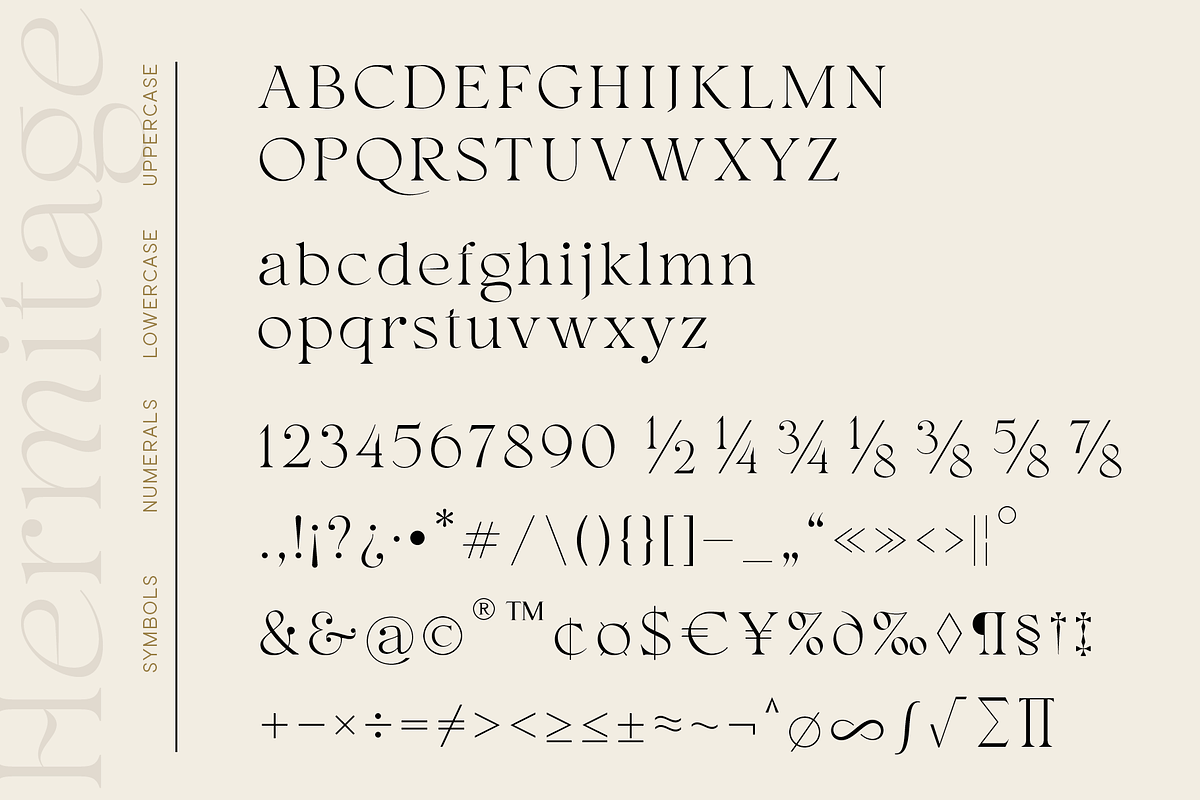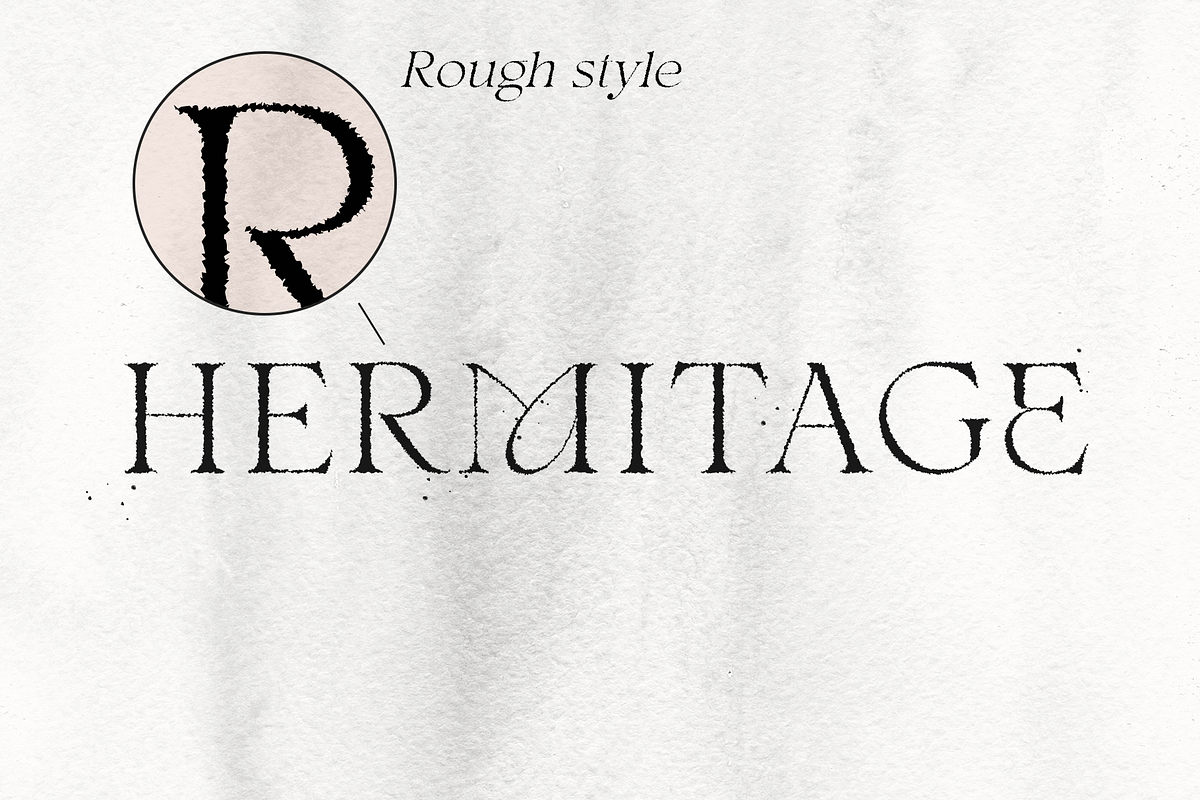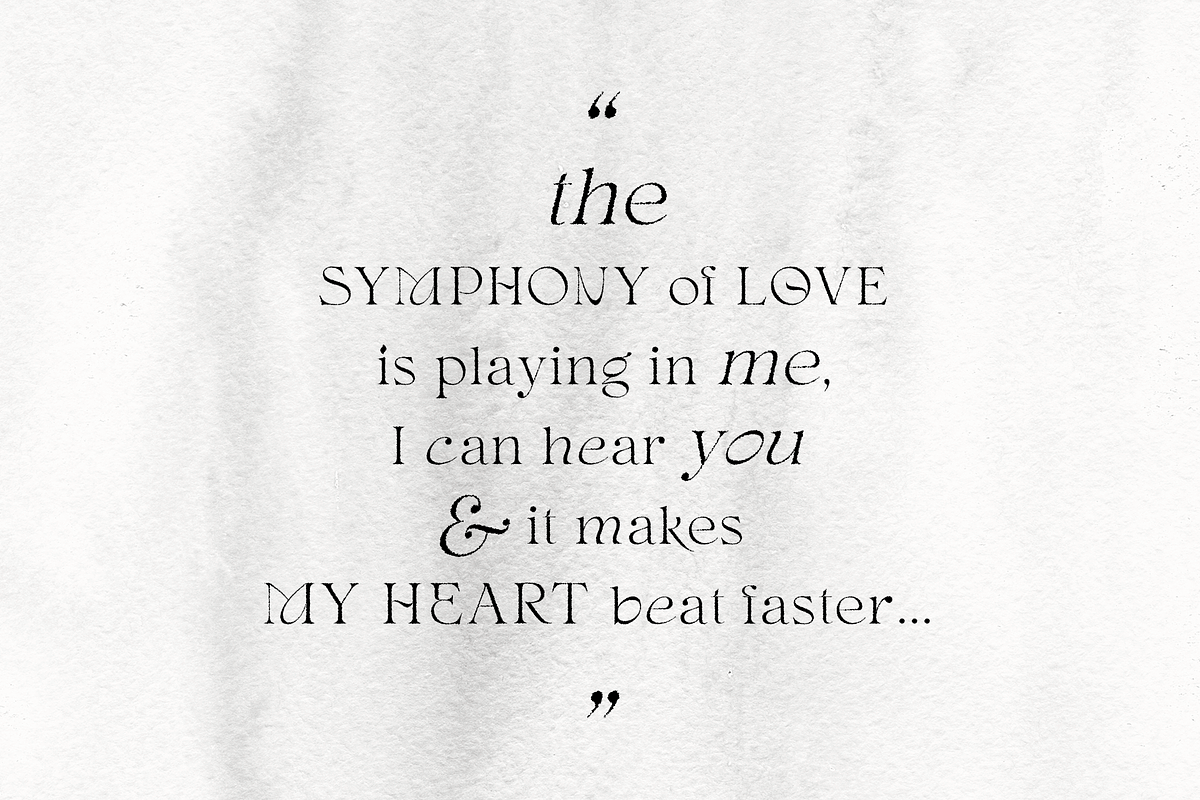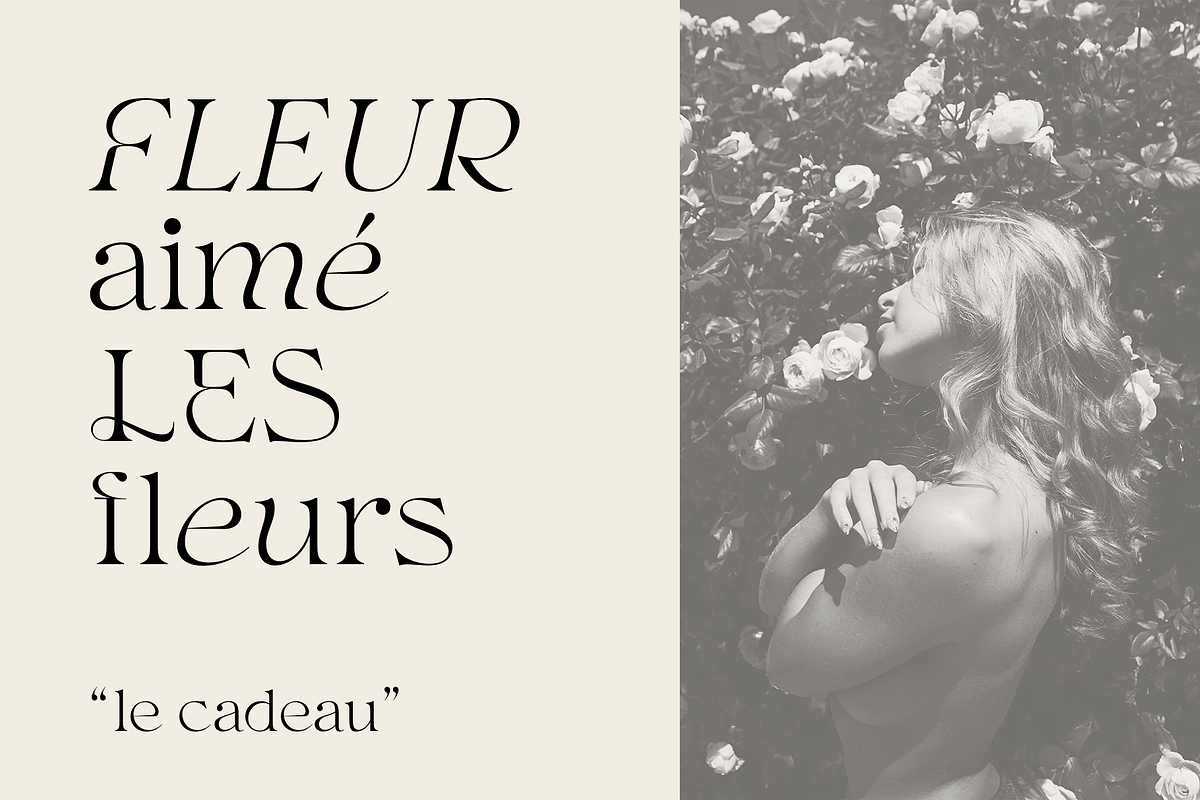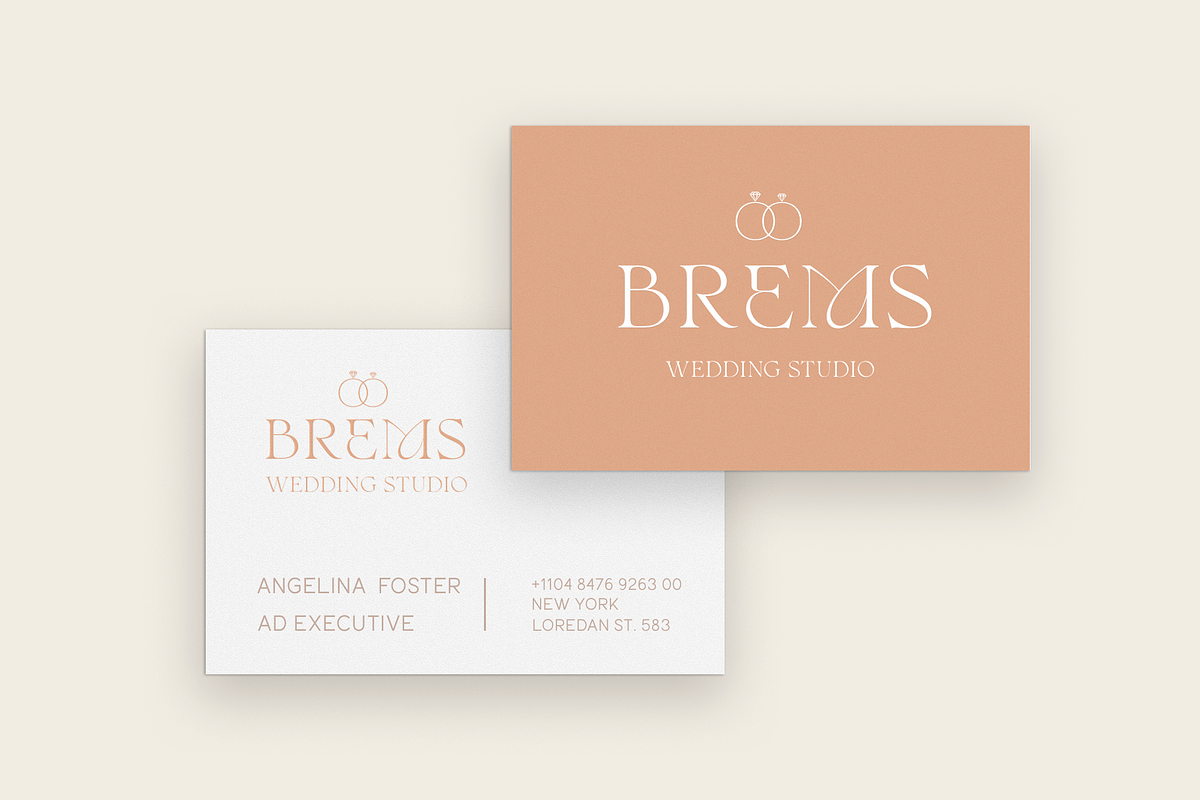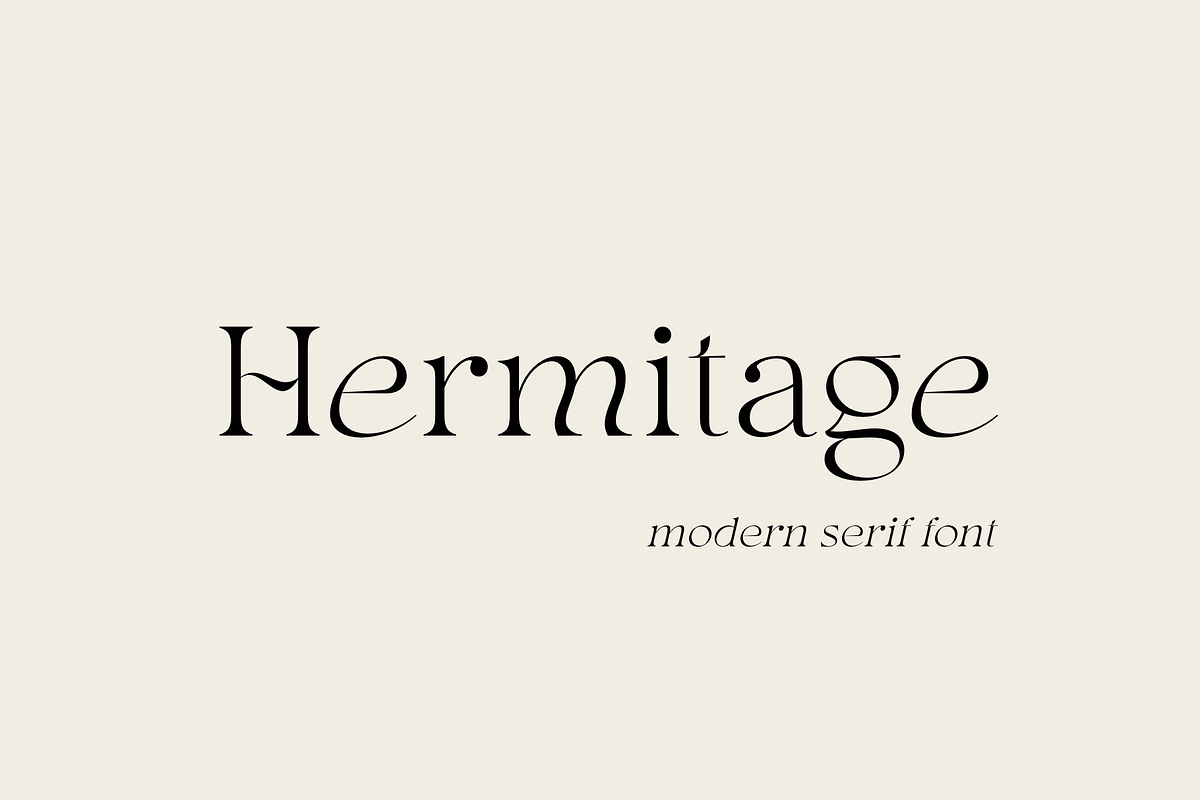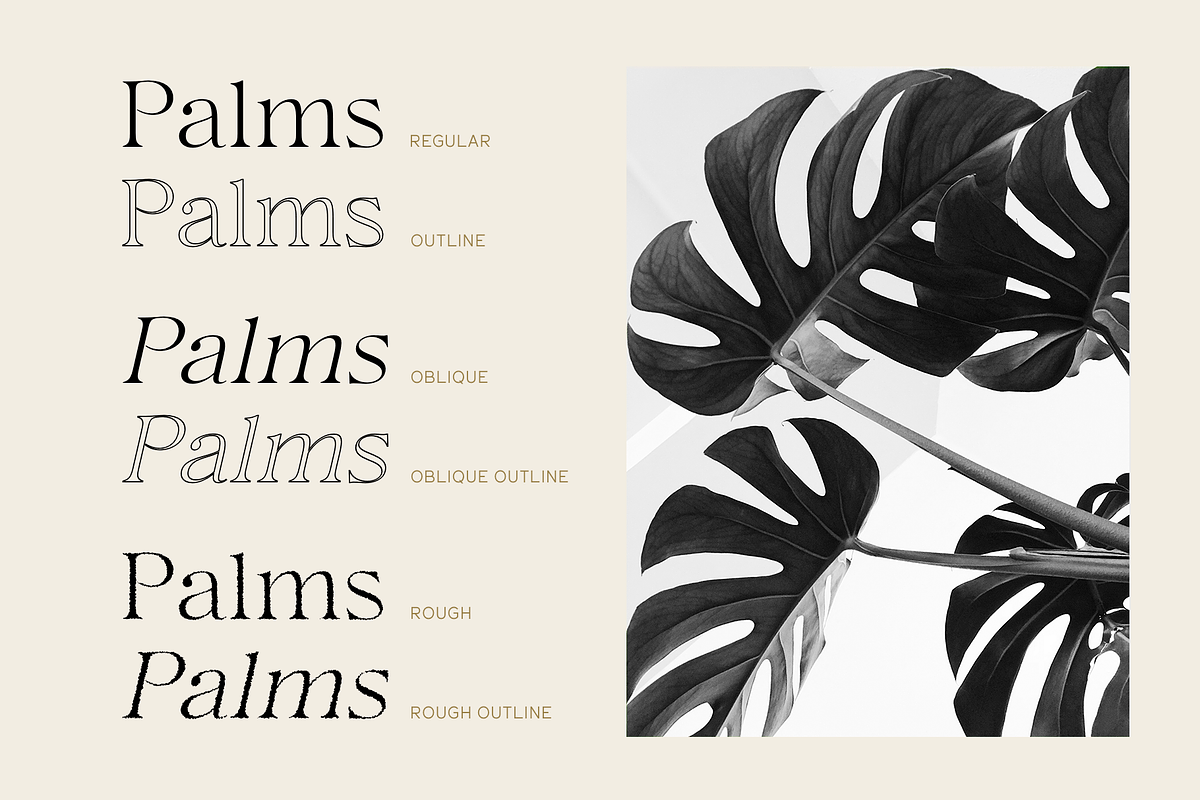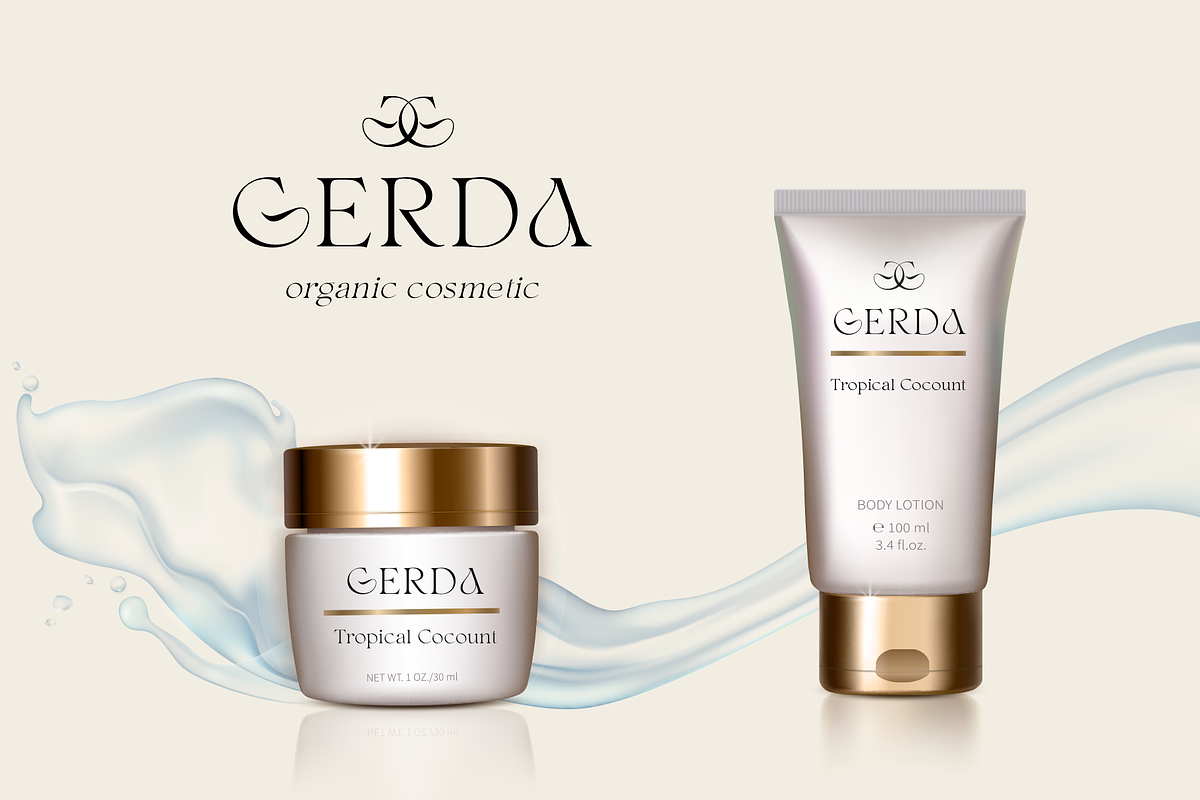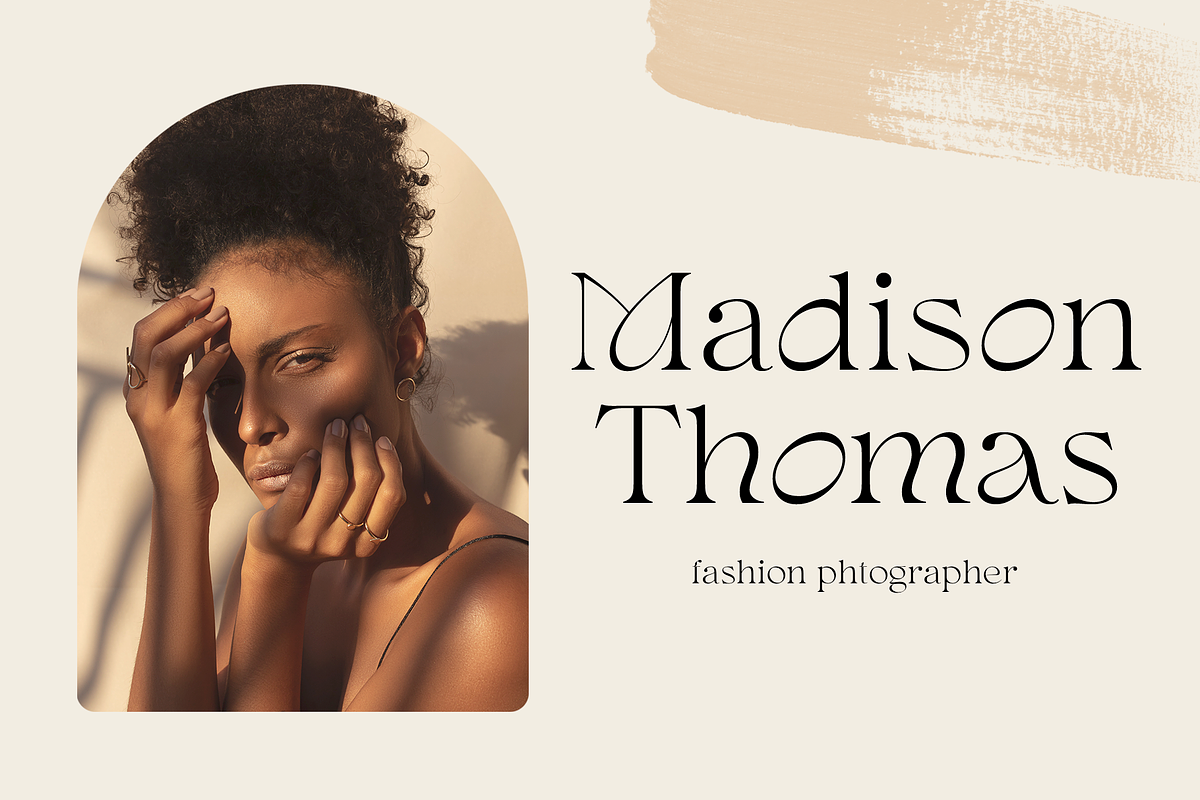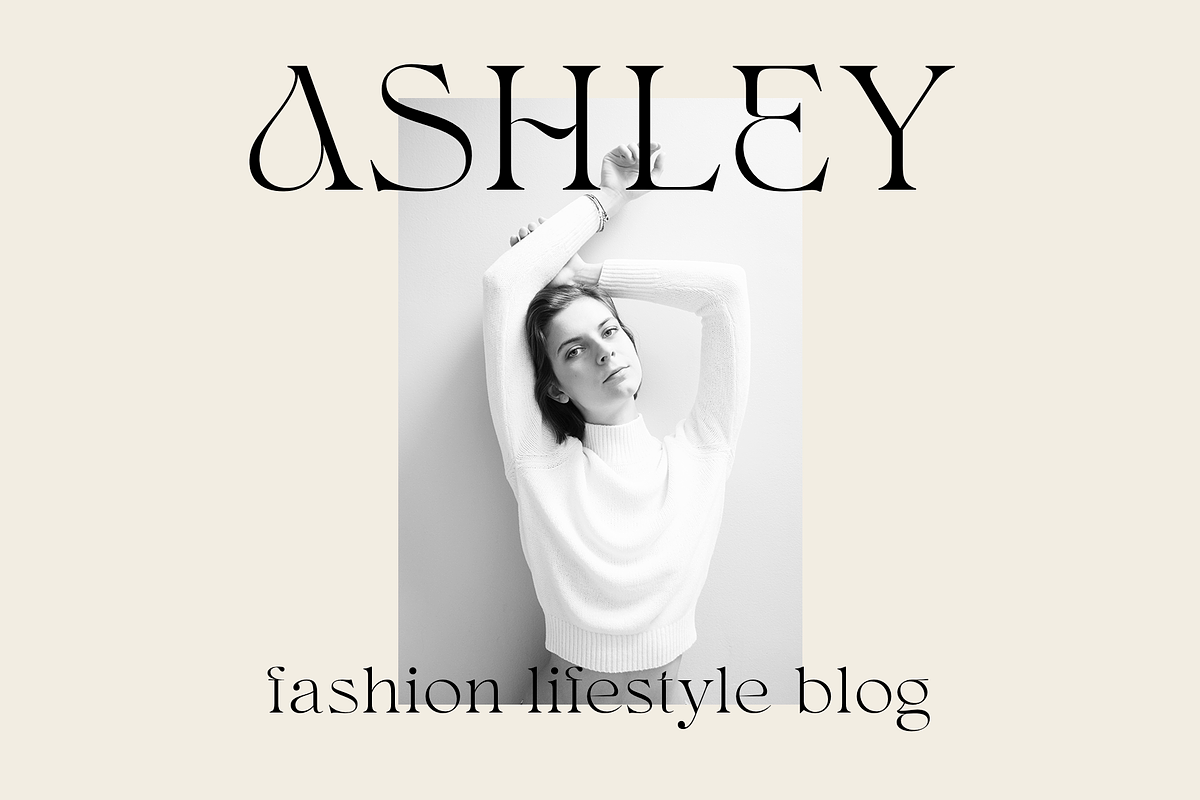
Hermitage
Hermitage is a modern, elegant serif font that includes six typefaces regular, outline, oblique, outline oblique, rough and rough oblique.
This font has a light weight and looks amazing in logos, branding, arranging wedding invitations, business cards, packaging, cosmetics, also works perfectly with text, it is very readable and recognizable, book cover, magazine headers, or simply as a stylish text overlay to any background image. This font includes alternates for Uppercase and Lowercase, with them you can make your project more elegant and unique and the slanted style will add dynamics to your design. Use a rough style on the craft paper, it will look great on it and create an atmosphere of handwriting. This font is easy to use has OpenType features.
Following international symbols support: ÀÁÂÃÄÅĄÇĆÈÉÊËĘÌÍÎÏÐÑŃŁÒÓÔÕÖØÙÚÛÜŚŠŸÝŹŻŽßàáâãäåçèéêëìíîïðñòóôõöøùúûüýÿąćęłńśšźżž
Full alphabet with Uppercase and Lowercase A-z
Numbers, fractions
Punctuation and symbols
Alternates for Uppercase
Alternates for Lowercase, also ampersand